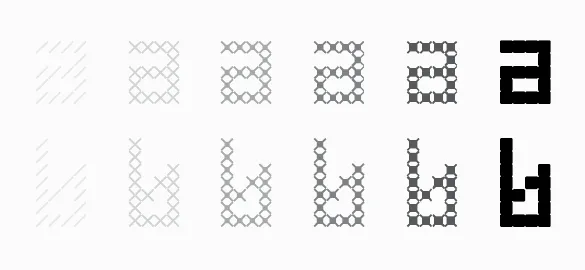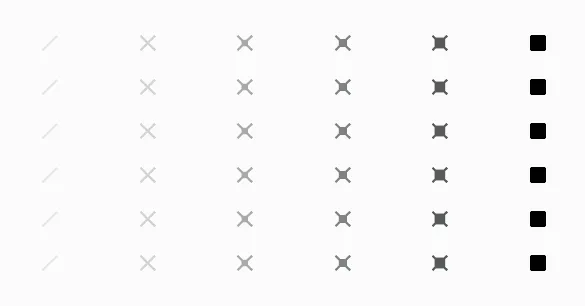
Designing FindReplace
Unlike other design mediums, type design works backwards from what is already agreed upon. That is to say, as readers, we’ve more or less come to a consensus on what an ‘a’ or a ‘b’ looks like so the job of type designers doesn’t often include rethinking such things. And for good reason: typefaces are for communicating messages from writers and designers directly to readers, not expressing oneself at the expense of readers.
But what about the process of constructing typefaces? Fortunately it remains wide open. FindReplace is the result of tinkering with the typeface-making process while aiming for a result resembling conventional letterforms. Of the six weights from Thin to Black, all styles honor this goal. They also honor the most basic of design origins: the line.
As the conjoined name implies, FindReplace is the bi-product of the Find and Replace function found in many software applications. Just like word processing software, the primary font design tool FontLab features a Find and Replace function allowing for the replacement of curves and objects instead of words. Taking this operation to the extreme, FindReplace was built by simply replacing a single line with progressively thicker versions of the same line throughout the entire font. The result is six weights with identical metrics and kerning that can replace one another for gradation effects or even be layered for added drama. And as you’ve likely gathered, though the letterforms resemble conventional shapes, the font is best used for sizes larger than text.